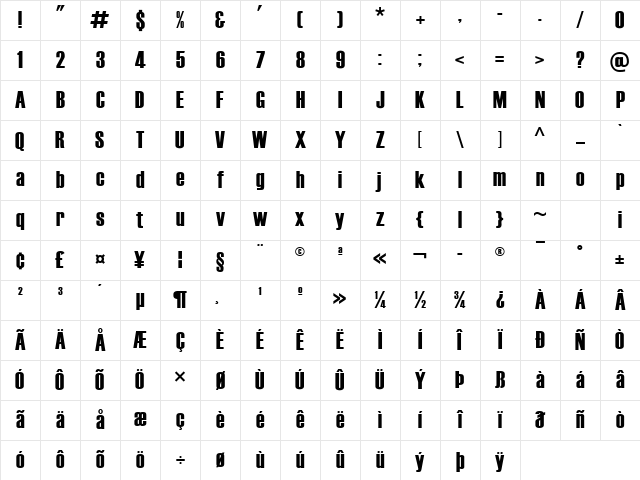
Temp Installer Font Regular
Design Context for Temp Installer Font
Temp Installer Font is a composed and adaptable typeface that performs quietly and consistently across a wide range of design contexts.
Pro Tip: Use Temp Installer Font in both headline and body roles to test its range before committing to a single application.